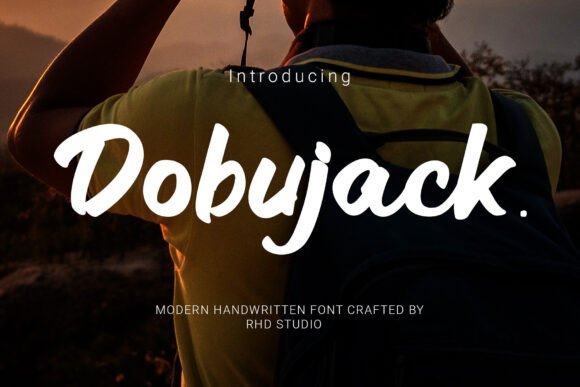
Introduction to Dobujack Font
Dobujack is a modern script font with modern character.
Dobujack bring authentic handwritten font to make your design project stand out Dobujack is a perfectly choice for any creative endeavor, creating, modern, chic, lifestyle design such as logotype, title, cover, branding, invitations, wedding designs, display and magazine, social media posts, advertisements, printed quotes, product packaging, corporate brand, product designs, labels, photography, watermarks, special events and any other project with modern touch.
Key Features of Dobujack Font